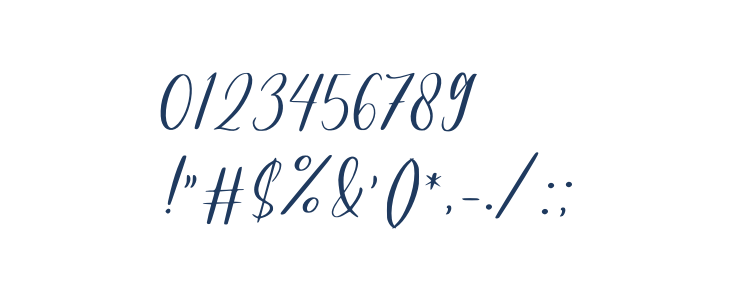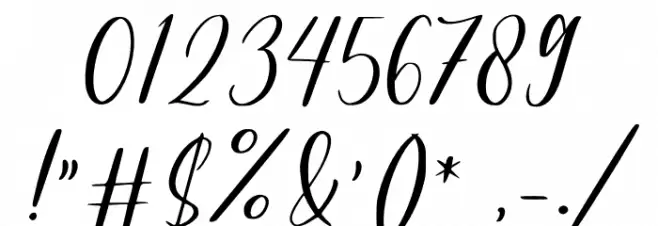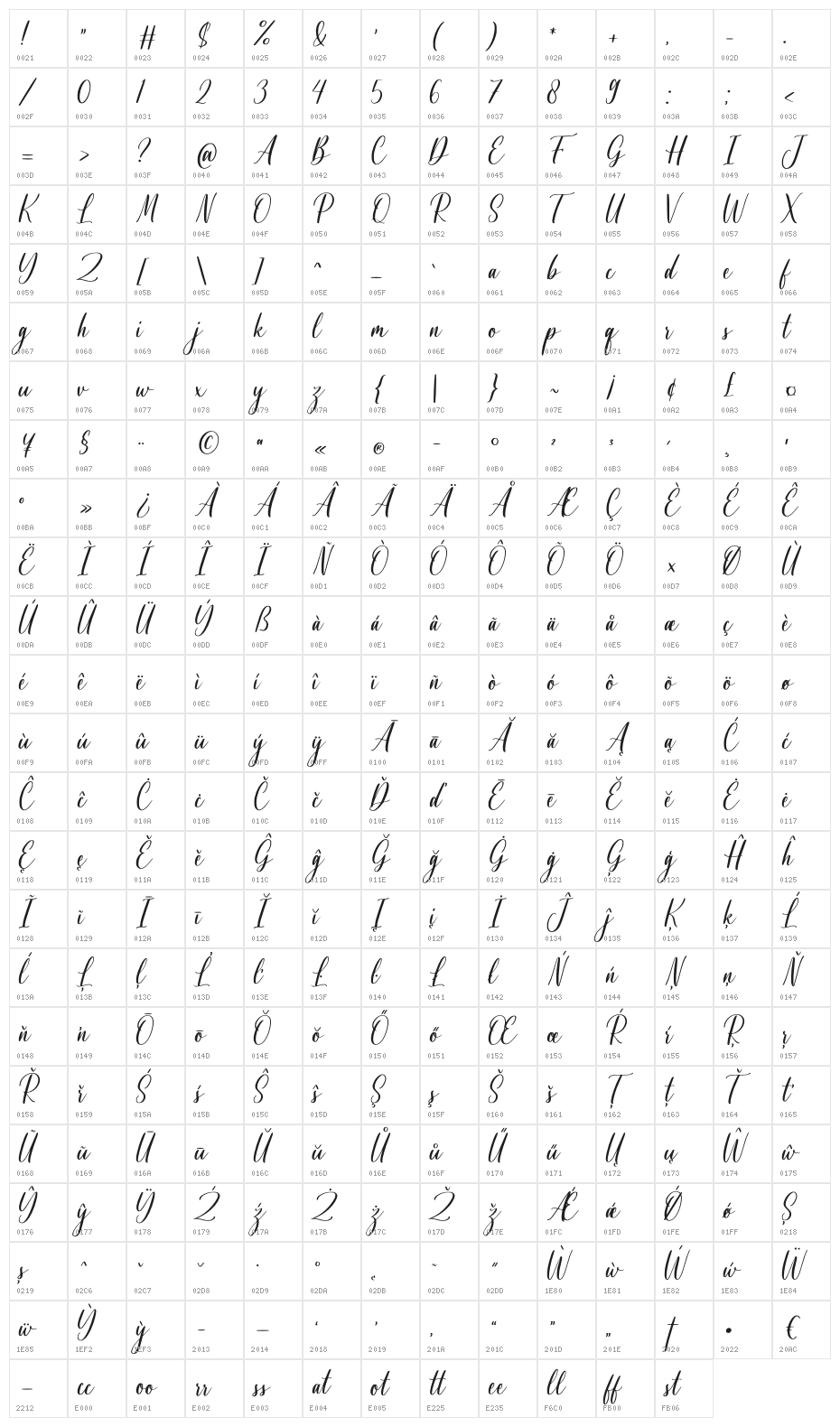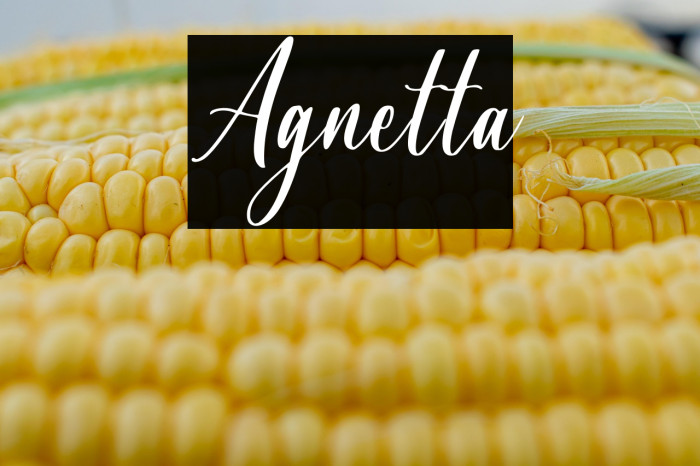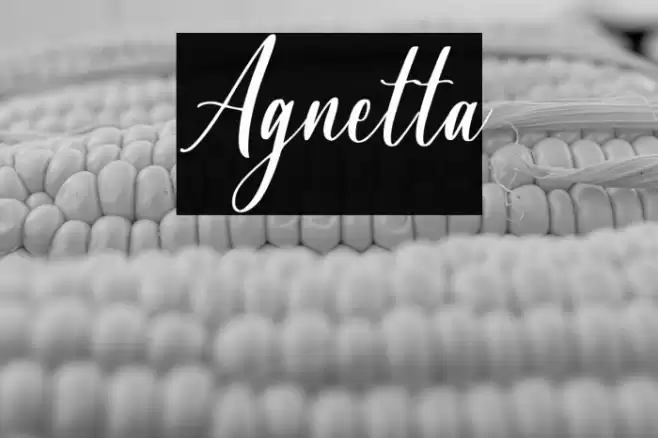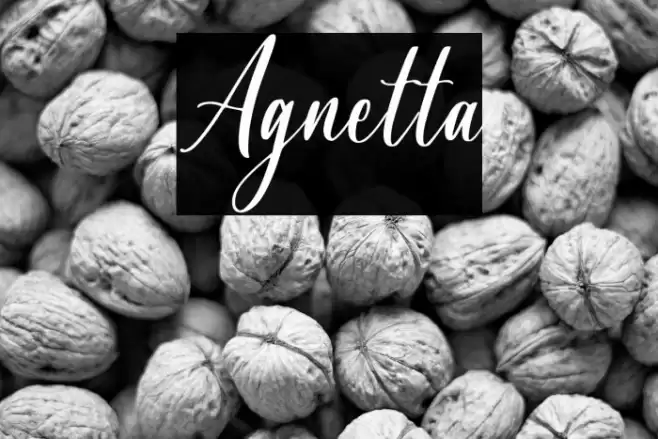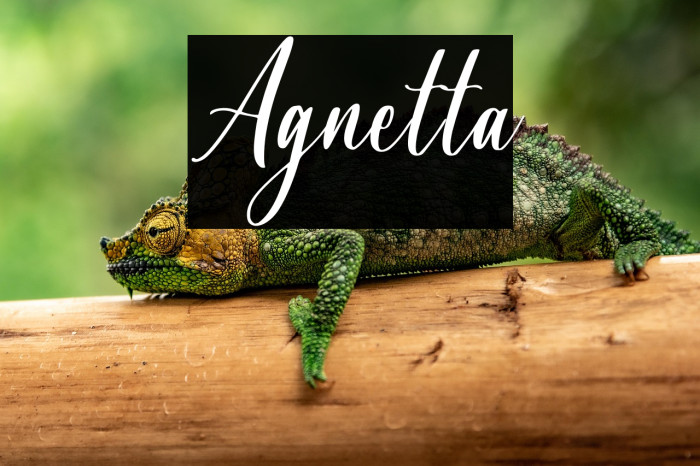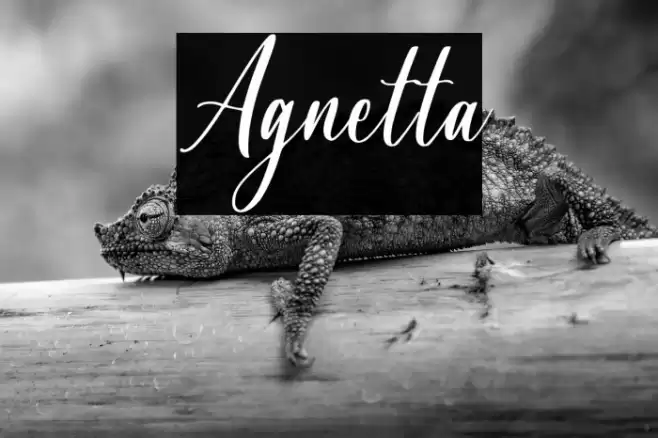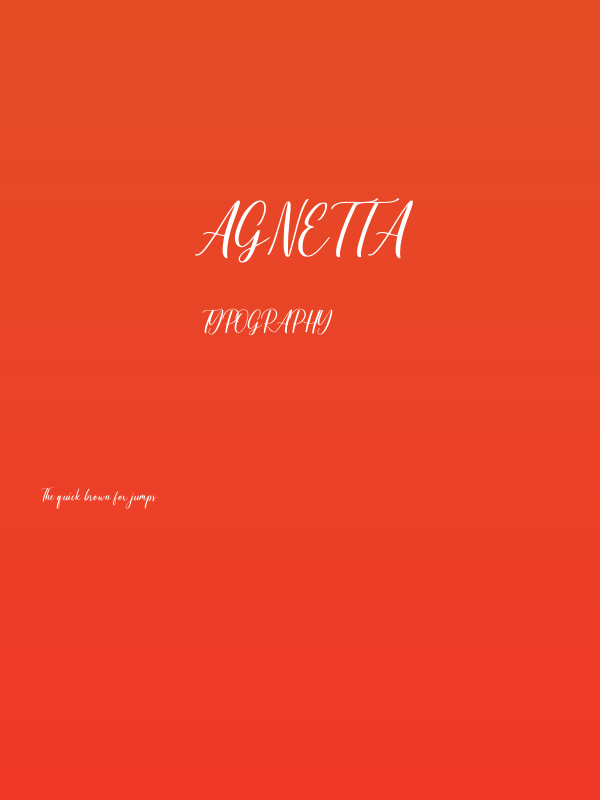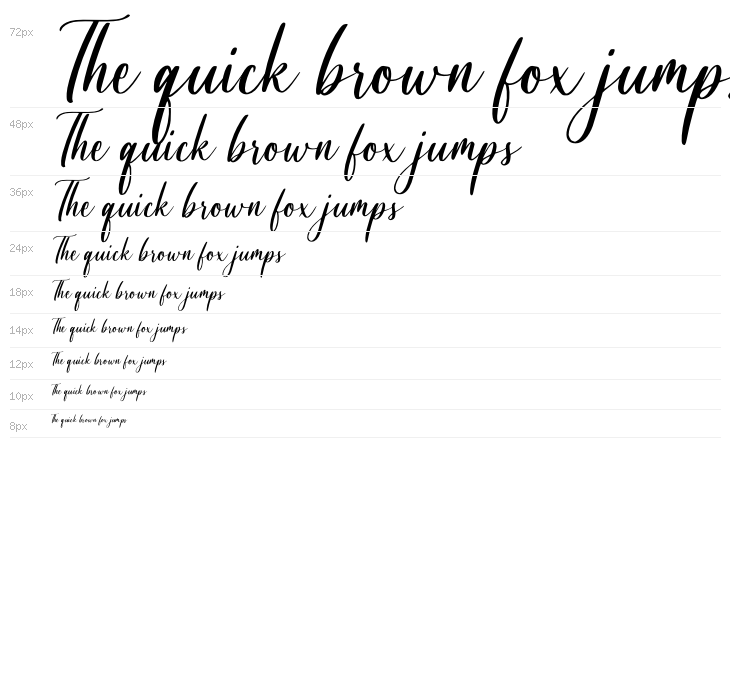
Agnetta Font
Agnetta Description
This elegant script font features a flowing, cursive style with a modern touch. The letters are interconnected, creating a seamless and fluid appearance. The uppercase letters are tall and graceful, while the lowercase letters maintain a consistent slant, adding to the overall elegance. The numerals are stylish and complement the alphabet, and the special characters are designed to match the script's fluidity. This font is perfect for adding a personal and sophisticated touch to any design project.
Use CaseLogos, Invitations, Greeting Cards
Proposed ProjectsIdeal for wedding invitations, greeting cards, branding, and elegant logo designs.